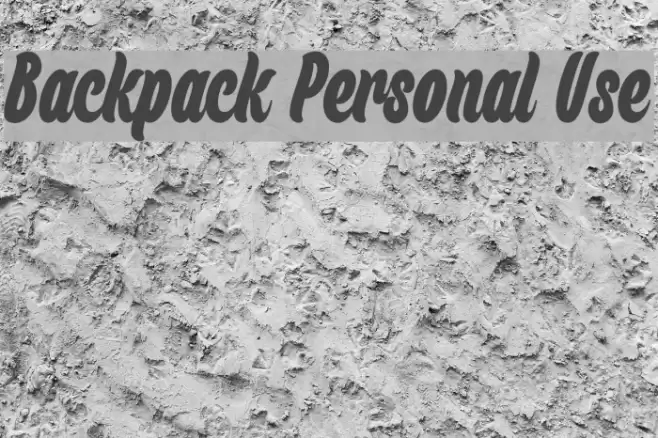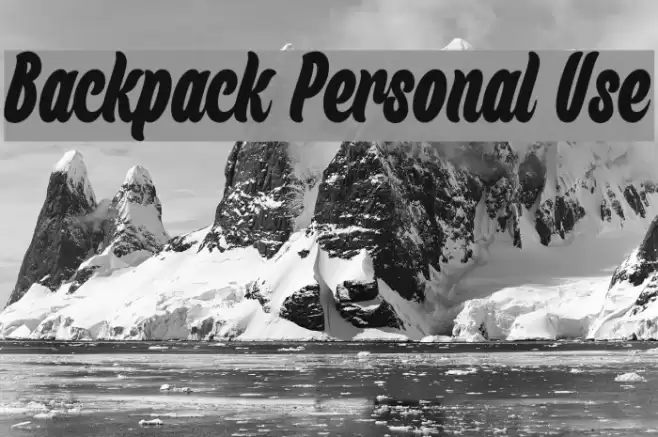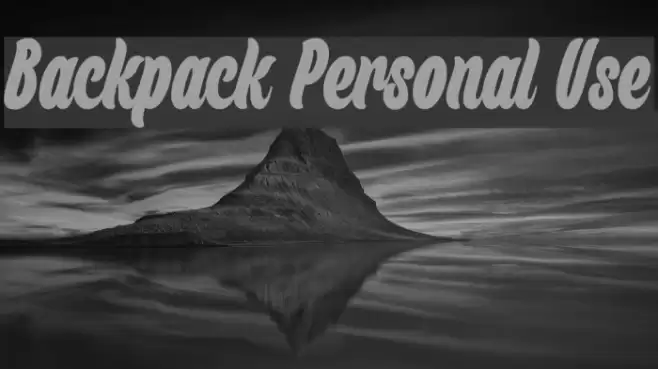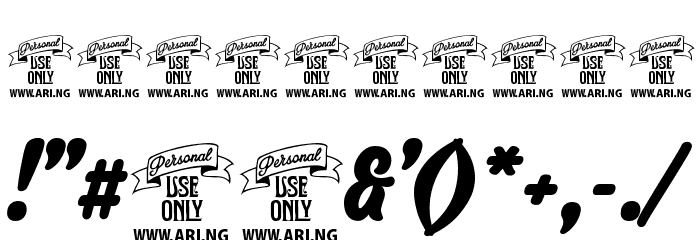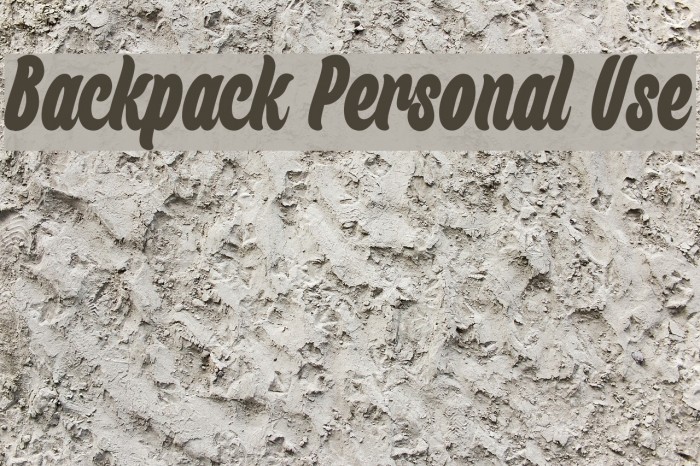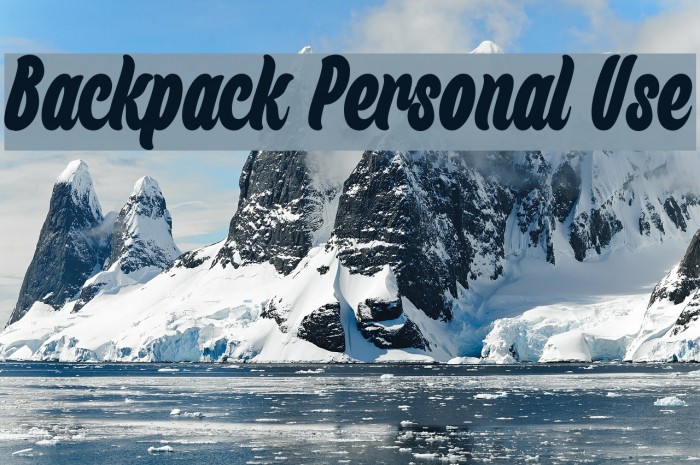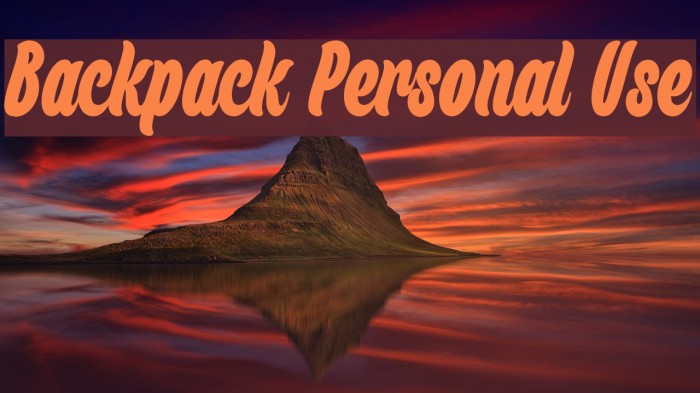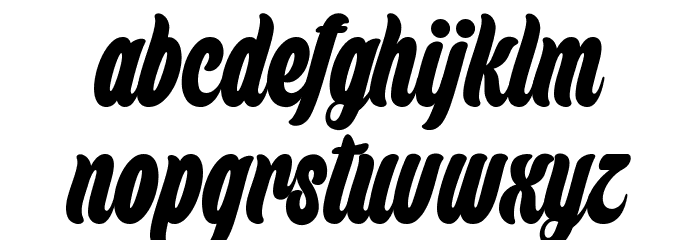
Backpack Personal Use Font
Backpack Personal Use Description
This font features a bold and dynamic script style with smooth, flowing curves and a strong presence. The characters are closely connected, giving it a cohesive and unified appearance. The uppercase letters are tall and commanding, while the lowercase letters maintain a consistent flow, enhancing readability. The font's thick strokes and rounded edges contribute to its friendly and approachable look. Special characters are designed with the same boldness, ensuring they integrate seamlessly with the alphabetic characters. This font is ideal for creating eye-catching designs that require a touch of elegance and flair.
A bold, dynamic script font with smooth curves and strong presence from Uncategorized fonts.
- Proposed Projects: Ideal for branding, logos, packaging, and headlines that need a bold, elegant touch.
- Character Spacing: Tight
- Use Case: Logos, Headlines, Branding